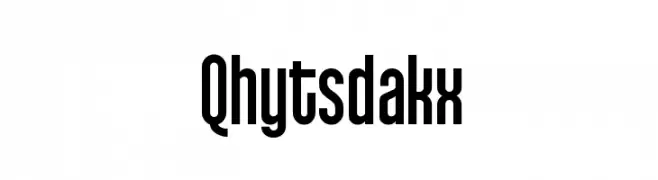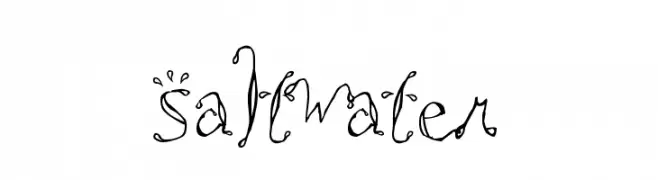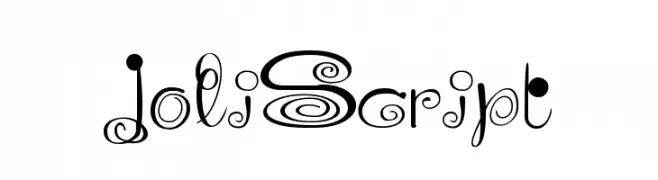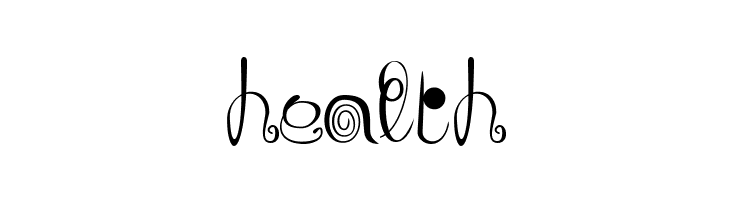
( Fonts by www.tepidmonkey.net )
A bold, modern, and condensed font with uniform strokes and rounded edges.
( Fonts by Manfred Klein - manfred-klein.ina-mar.com )
A bold, slab serif font with a strong, impactful presence.
( Fonts by TarmSaft Font Factory - http://www.aska.nu/tarmsaft/ )
A bold, serif font with a medieval flair and sharp, angular serifs.
( Fonts by Schmopyright - Kelly Deal )
A whimsical, fluid font with a hand-drawn, playful style.
A classic, medieval-inspired font with sharp, angular lines and intricate detailing.
( Fonts by Altsys Metamorphosis )
A medieval-inspired font with sharp, angular strokes and intricate detailing.
( Fonts by Graham Meade - GemFonts )
A medieval-inspired font with sharp serifs and unique cross-like details.